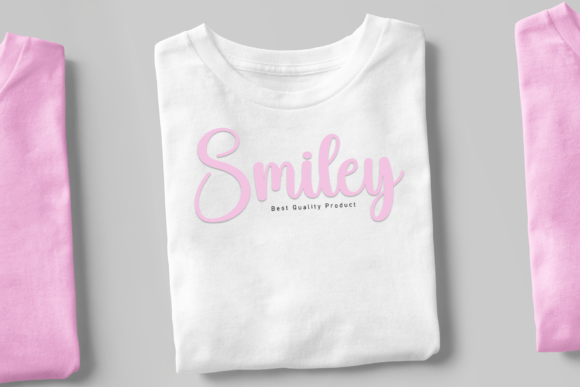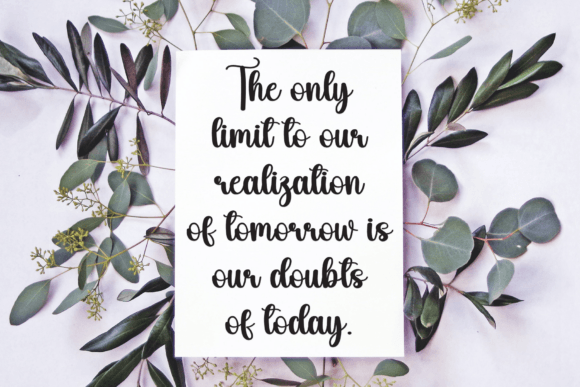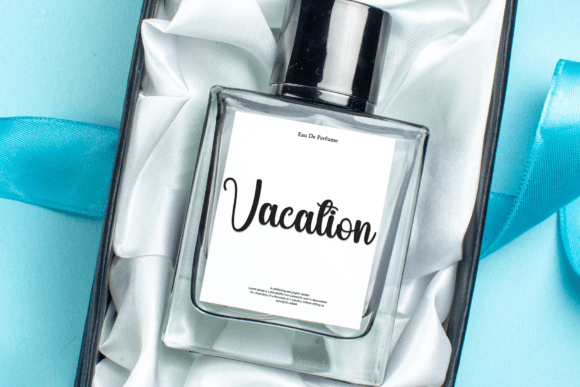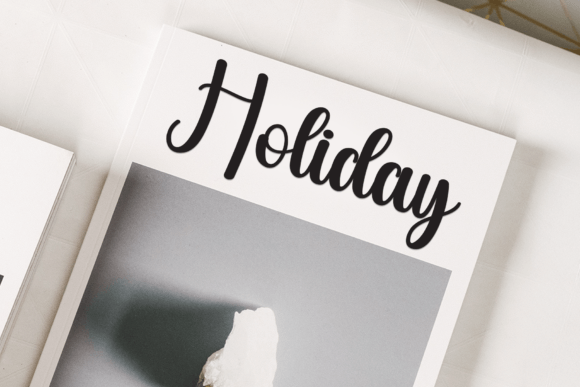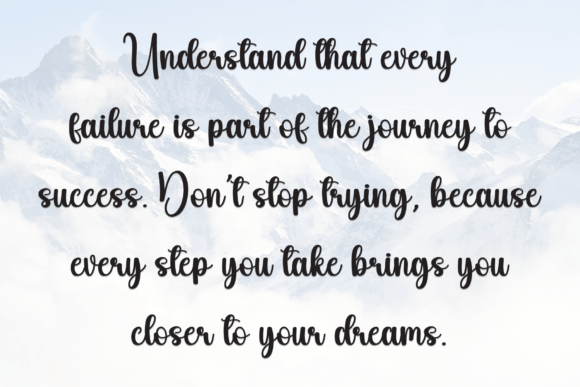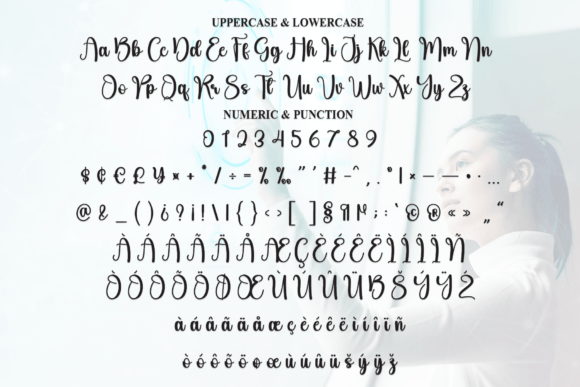
Discover the Magic of Digital Fonts: Elevate Your Designs with Whimsy and Charm
In the world of digital design, fonts play a crucial role in conveying the tone and personality of your content. A well-chosen font can make all the difference in capturing the attention of your audience and leaving a lasting impression. If you’re looking to add a touch of whimsy and friendliness to your designs, look no further than our delightful handwritten display font.
Introducing Our Whimsical Handwritten Display Font
Our digital font is a masterpiece of creativity, designed to infuse sweetness and warmth into your designs. With its playful and charming aesthetic, this font is perfect for designers and crafters who want to add a personal touch to their work. Whether you’re creating wedding invitations, greeting cards, or any other design, our font is sure to magnify the joy of your textual content.
The Versatility of Our Digital Font
Our whimsical handwritten display font is incredibly versatile, making it perfect for a wide range of design applications. From wedding invitations and greeting cards to social media graphics and blog posts, this font can be used to add a touch of personality to any design. Its playful and charming aesthetic makes it ideal for:
- Blog posts and articles
One of the best things about our digital font is its flexibility and creativity. With a wide range of characters, ligatures, and swashes, you can experiment with different combinations to create unique and eye-catching designs. Don’t be afraid to play with font sizes, colors, and textures to add depth and interest to your designs. Whether you’re a seasoned designer or a crafty DIY enthusiast, our font is sure to inspire your creativity.
So why choose our whimsical handwritten display font over other fonts available online? Here are just a few reasons:
- Unique and exclusive design: Our font is carefully crafted to ensure that it’s unlike any other font available online.
- High-quality and legible: Our font is designed to be clear and legible, making it perfect for both digital and print applications.